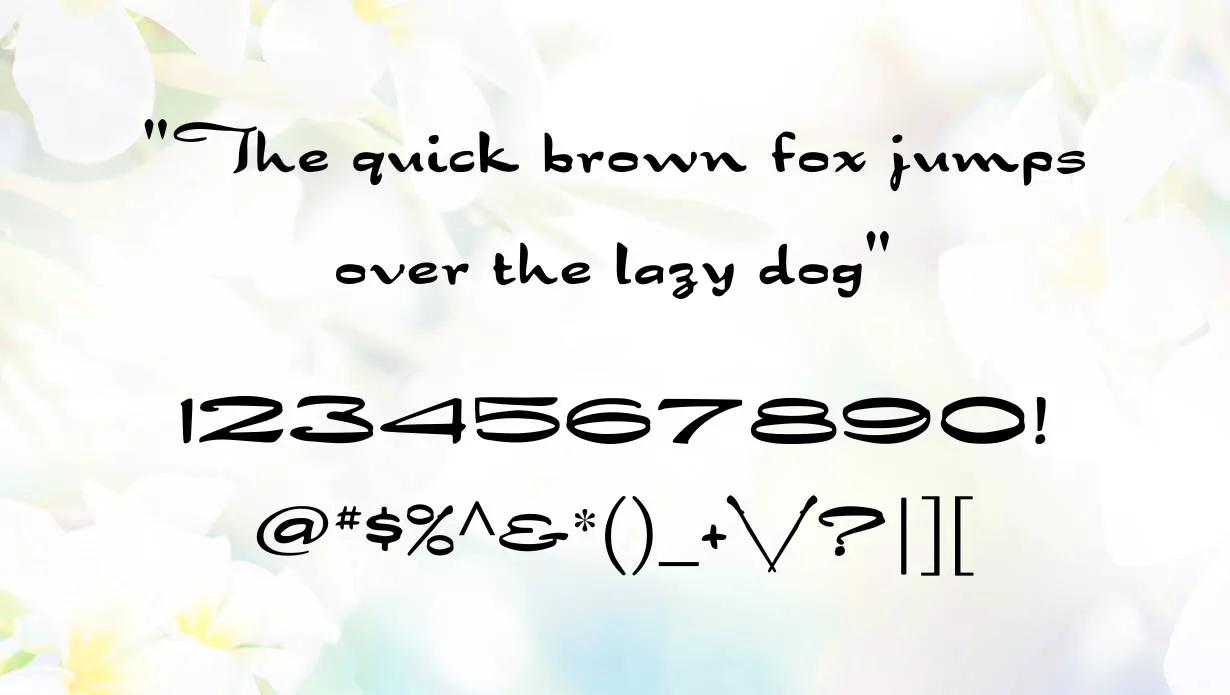
The Dragonfly Font has a whimsical and playful style. Its fun and quirky letters bring a sense of joy and creativity to any text. This font is typically available in various file formats, such as TTF and OTF, ensuring adaptability across different design programs.
It’s often seen in children’s books or imaginative projects, adding a touch of fun and imagination to the writing.
| Name | Dragonfly Font |
| Designer | Rick Mueller |